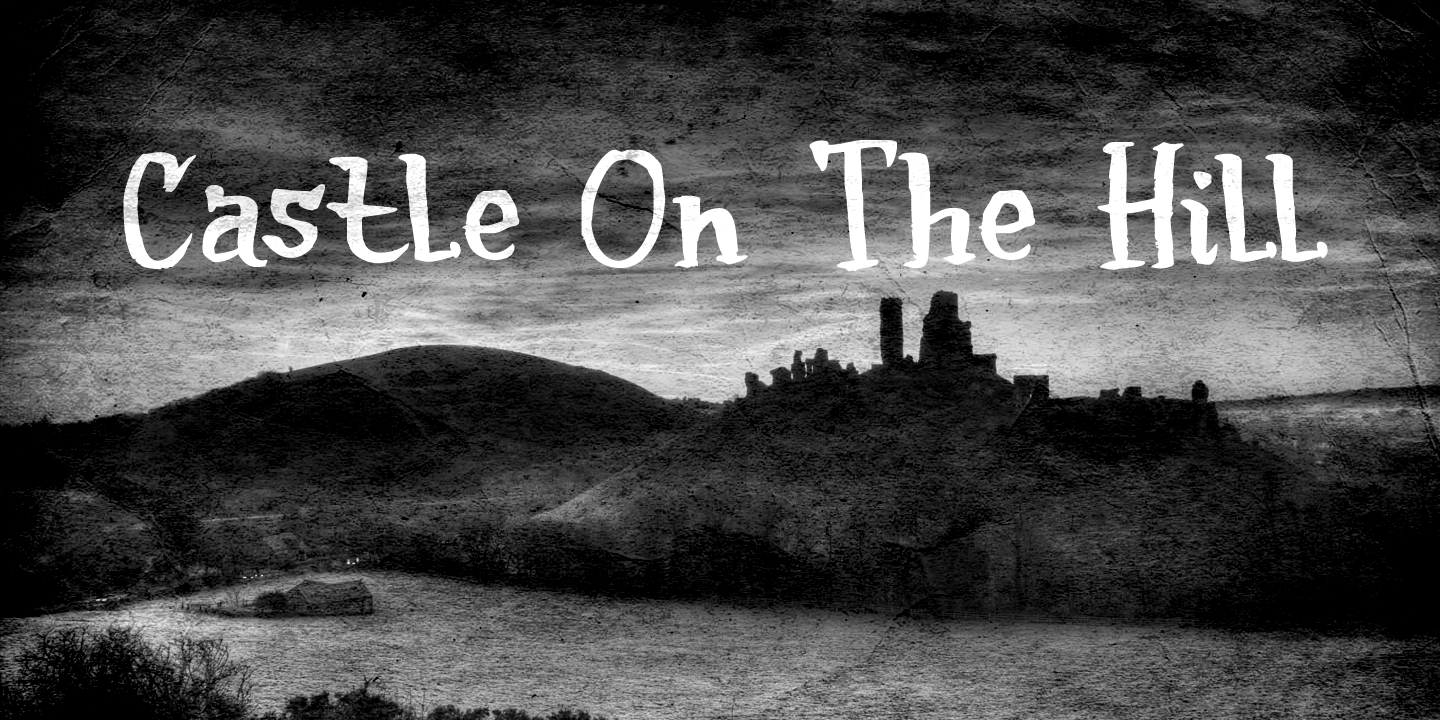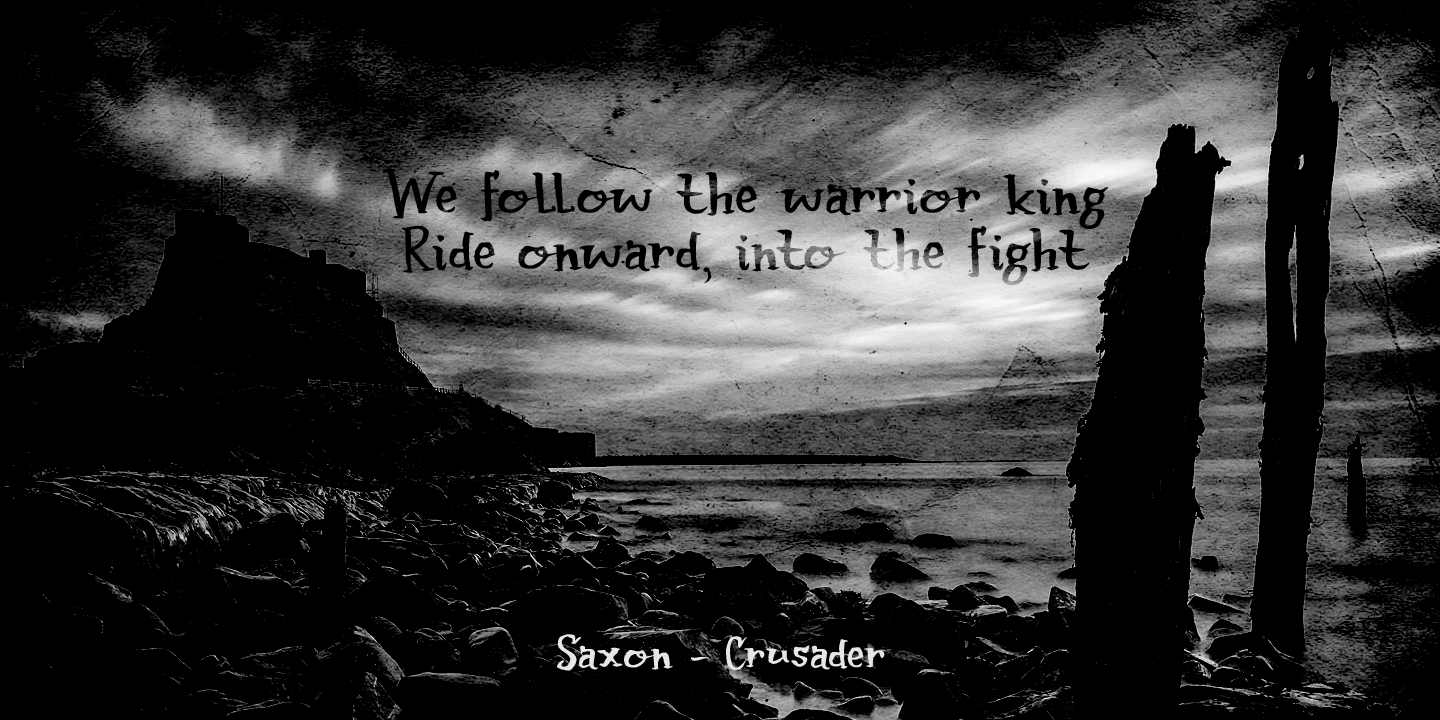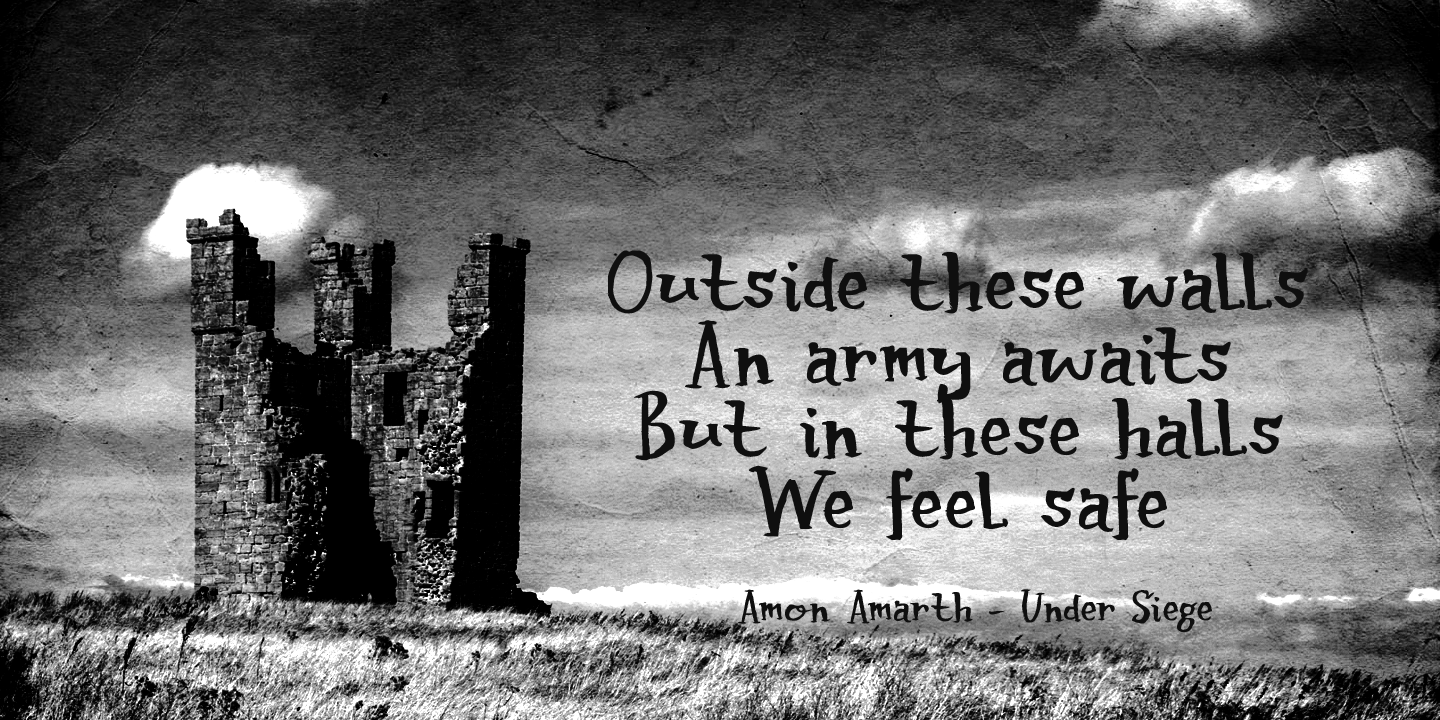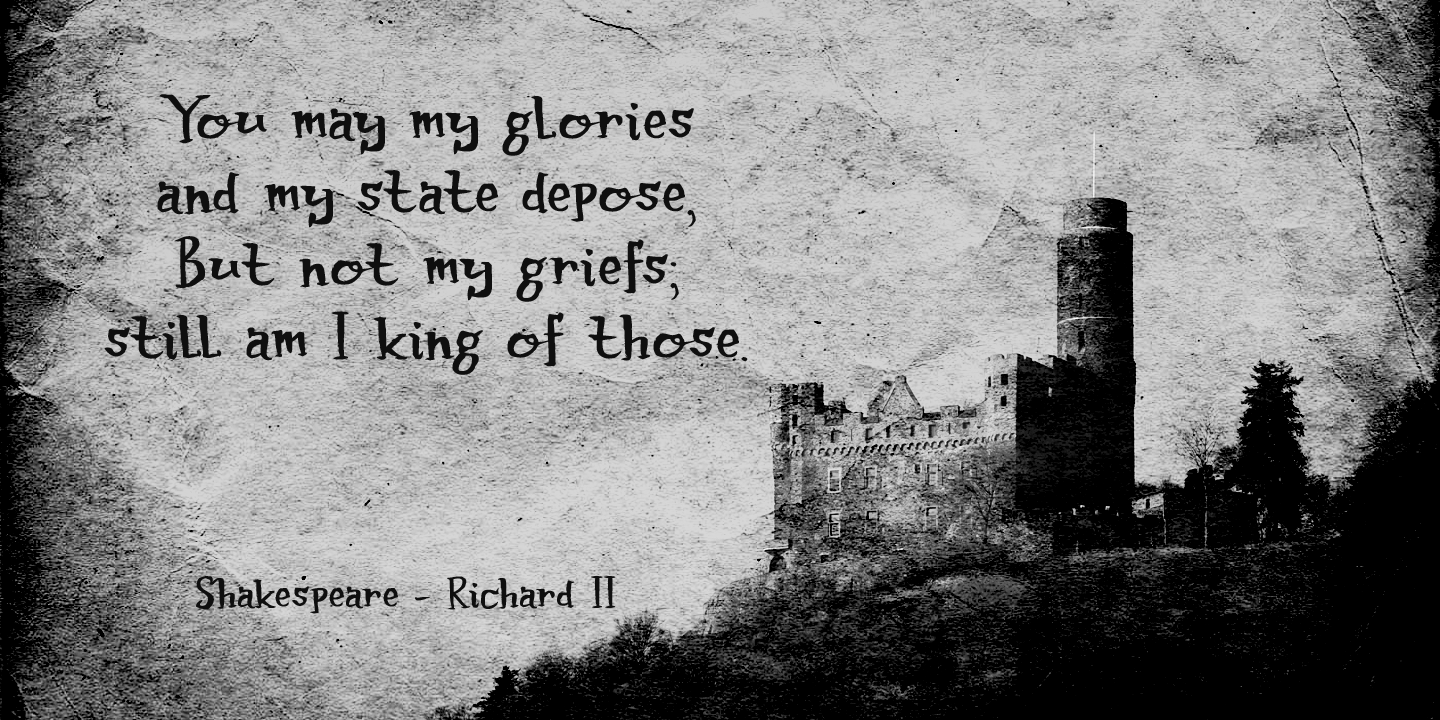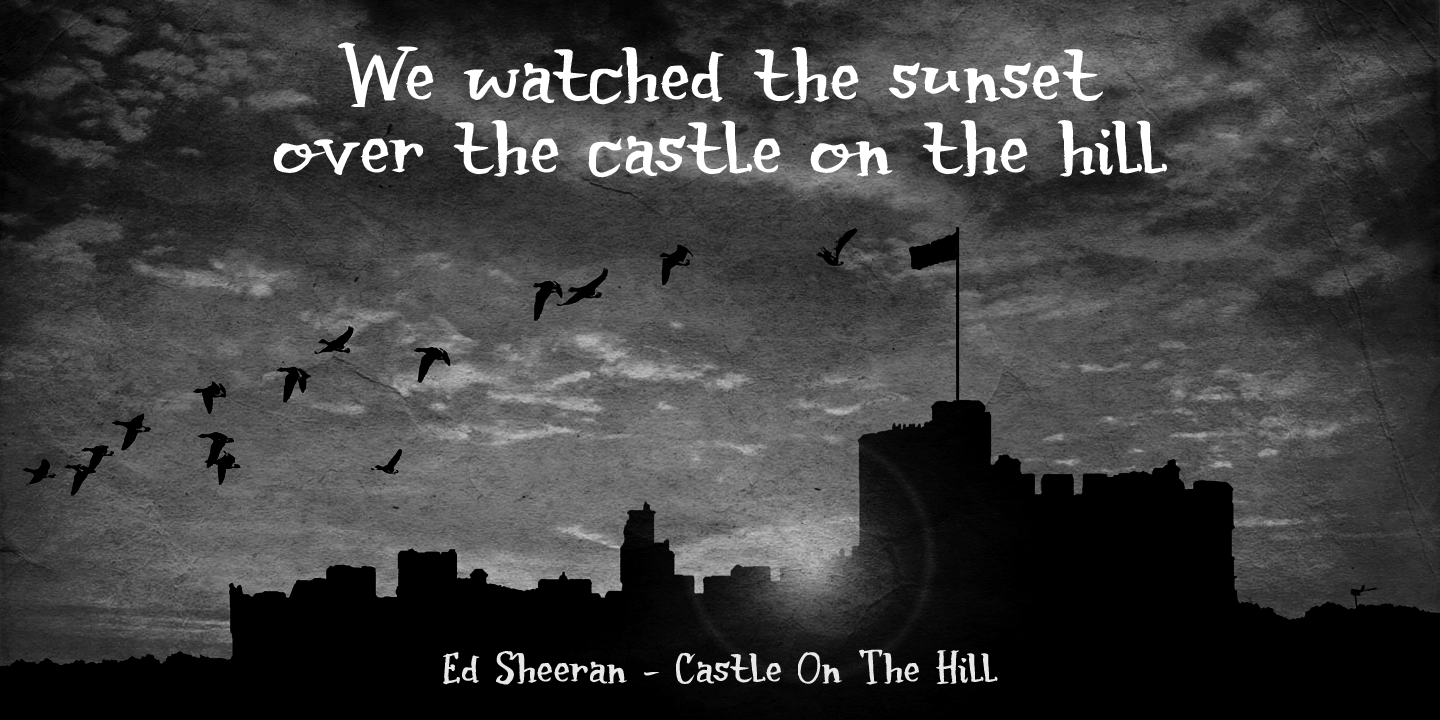
Castle On The Hill
Font Family by Hanoded
Buy NowWhen I started working on this font, I had the radio on. Ed Sheeran was singing his song ?Castle On The Hill? and when I looked at this new font of mine, I couldn't help but notice it had a bit of a medieval look. So I named it Castle On The Hill.
COTH is a very lively, messy handpainted serif. It was made with a Japanese brush pen. I actually had a different look in mind, but this is what came out of the pen and I quite liked its looks. It is especially useful for children's book covers, apps and posters, but be my guest and use it as you like.
All it needs is a designers? touch, a nice tune and a sunset.